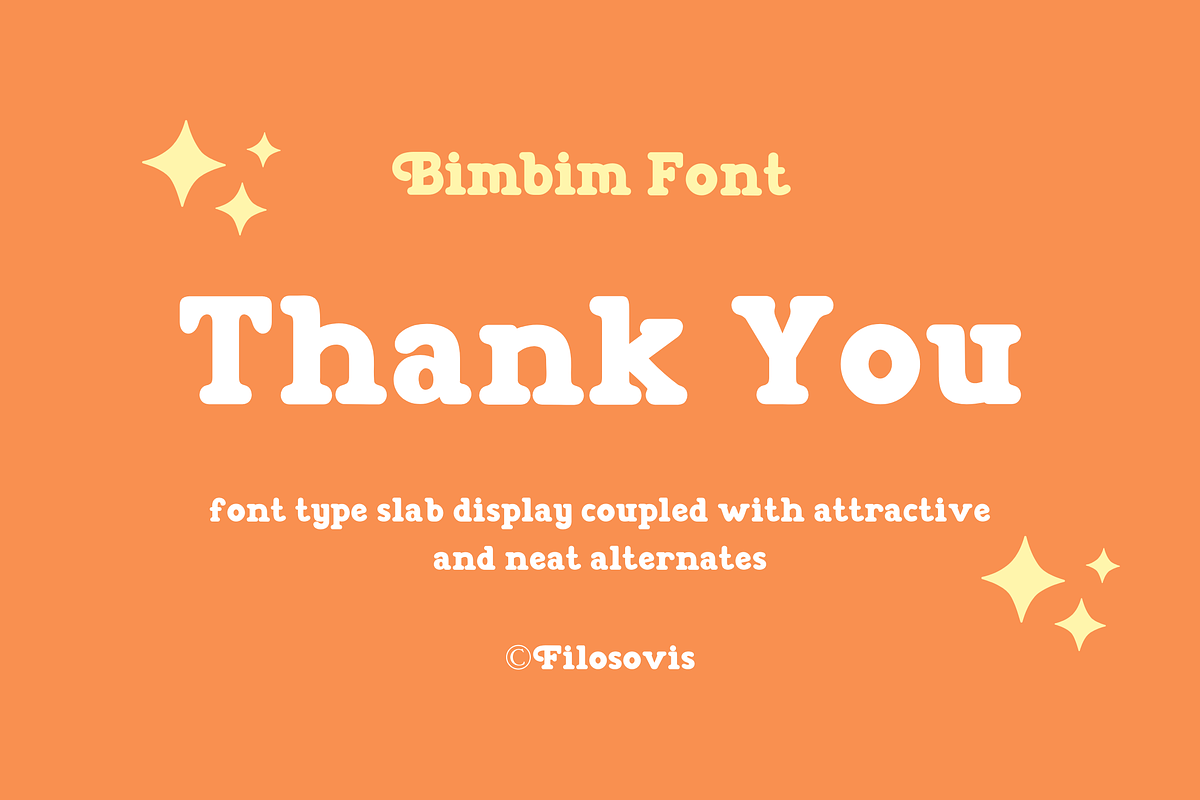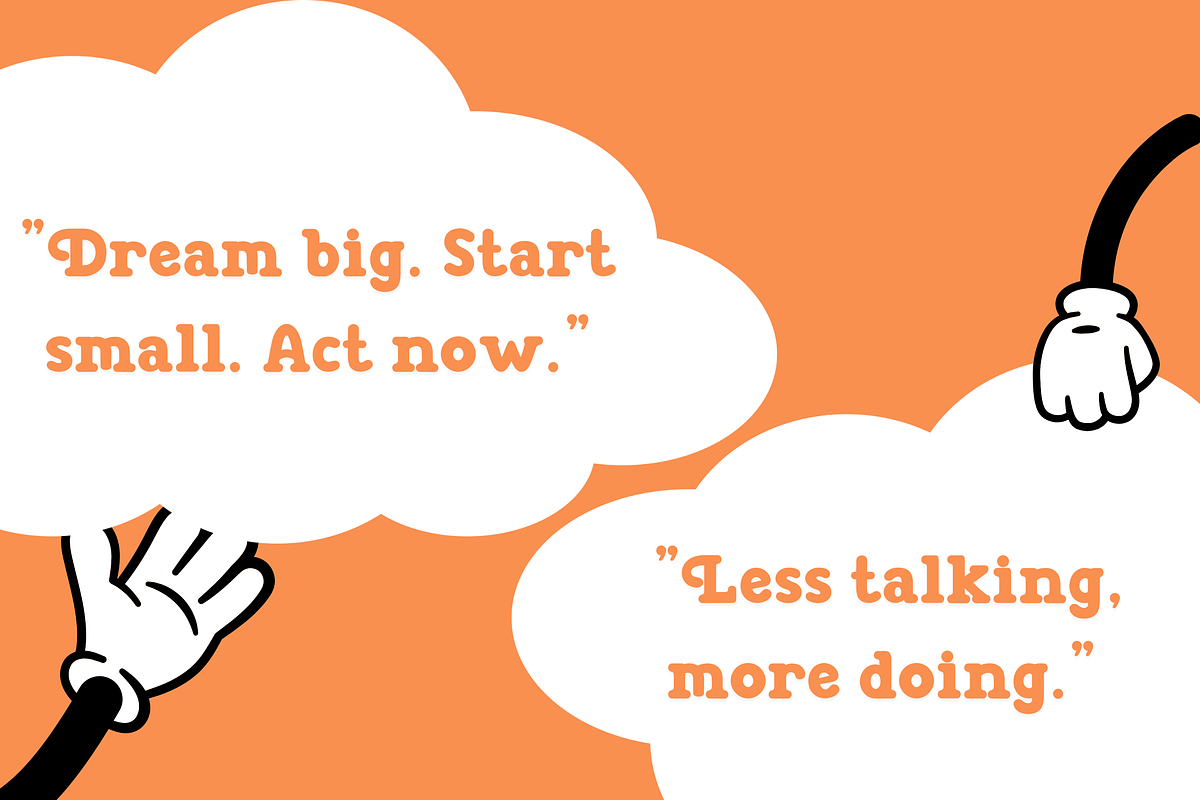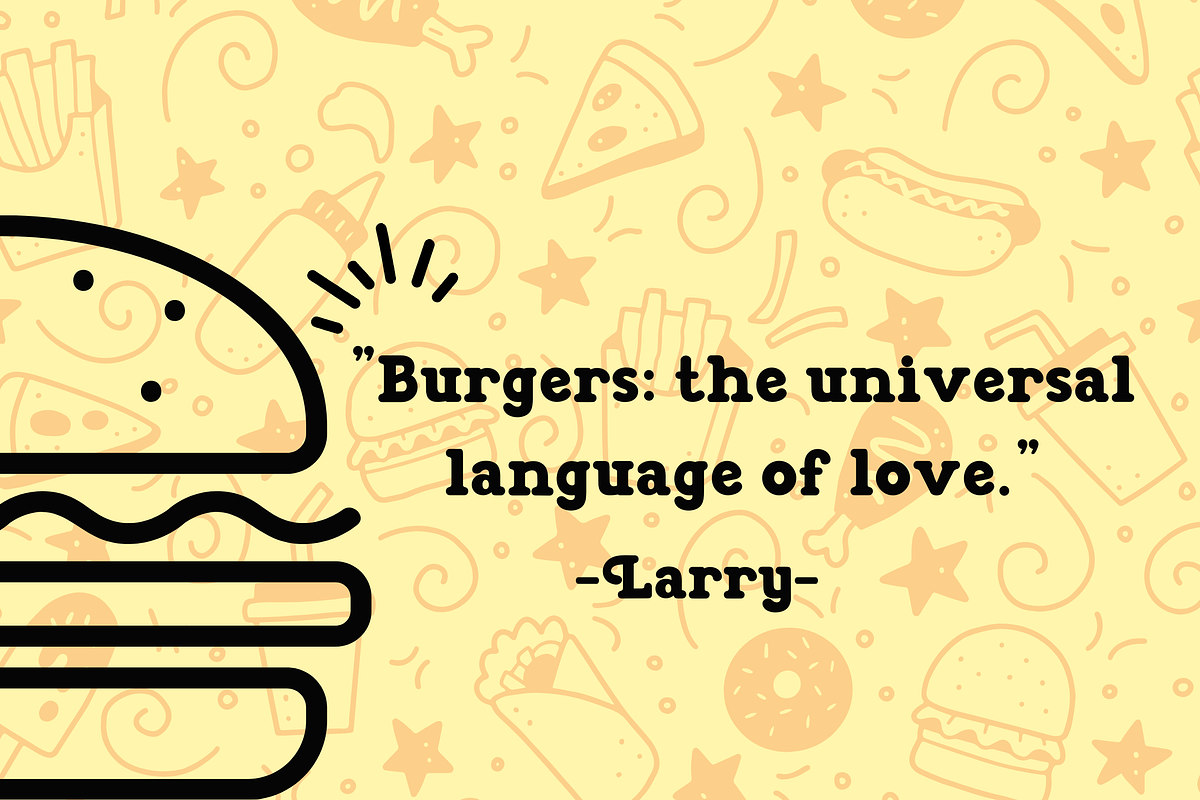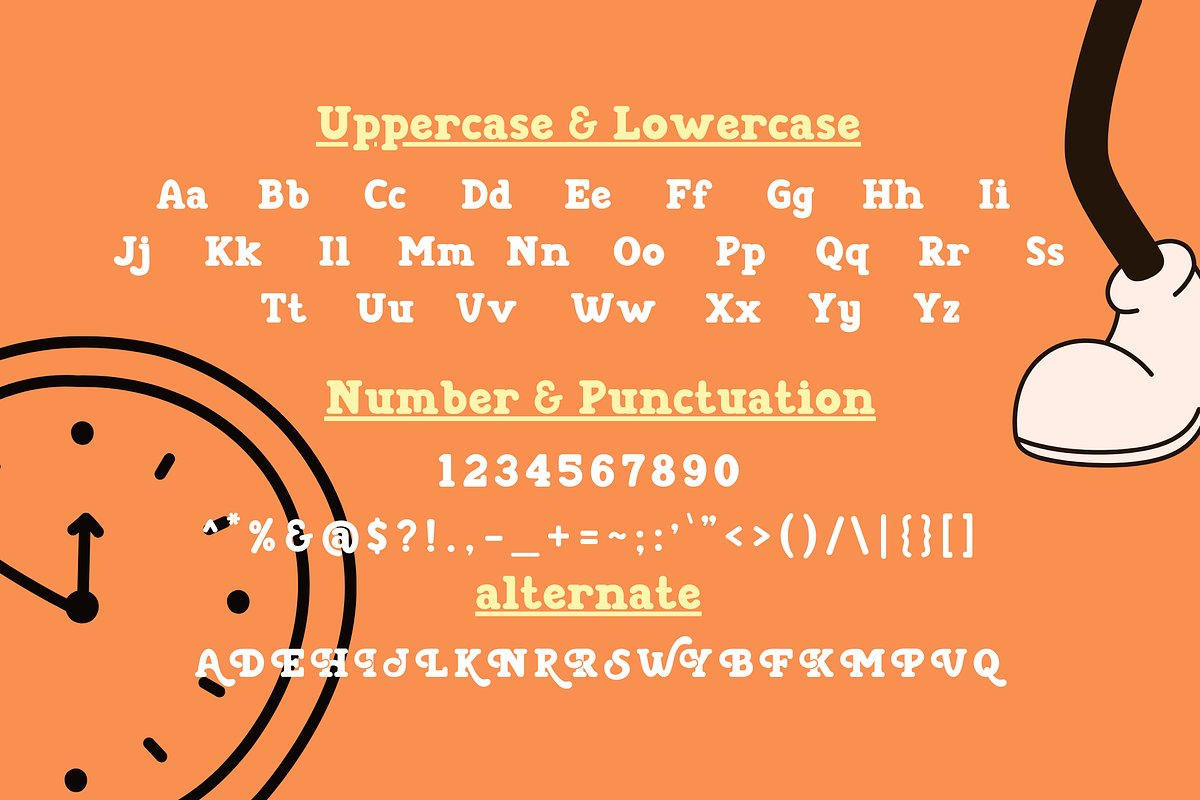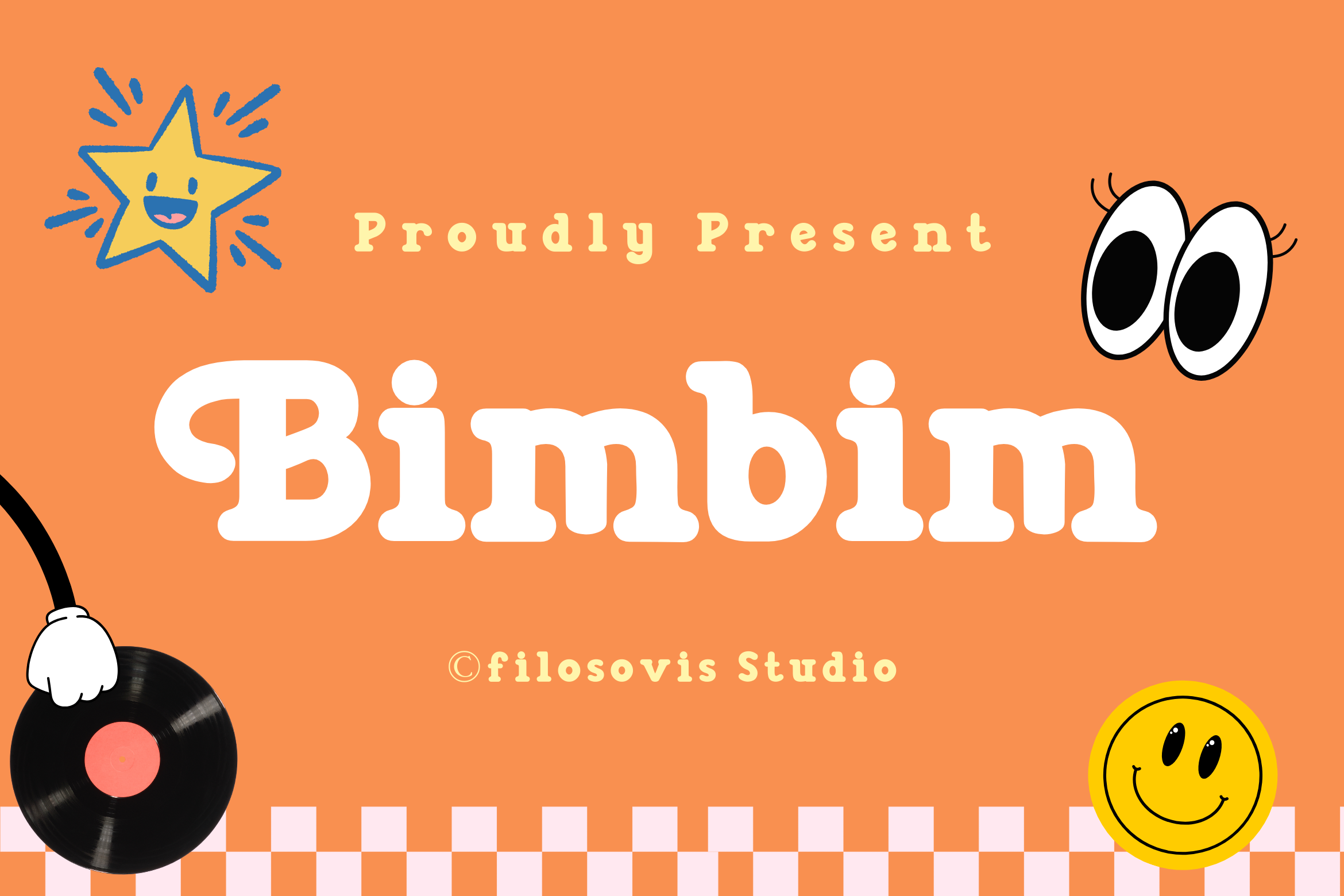
Bimbim | Decorative Font
Bimbim is a modern decorative font that adds a playful twist to any design. With its whimsical letterforms and unique charm, it's perfect for eye-catching headlines, vibrant posters, and playful branding projects. Infuse your creations with joy and personality with Bimbim!
- Uppercase Characters
- Lowercase Characters